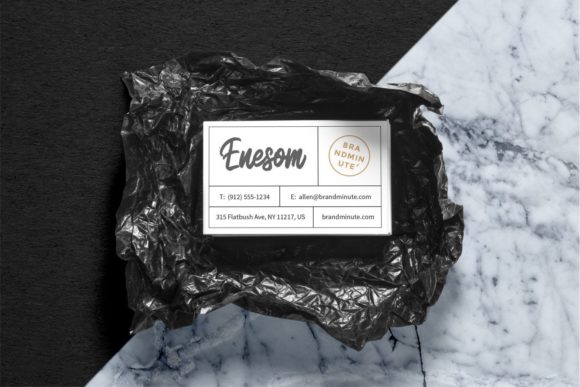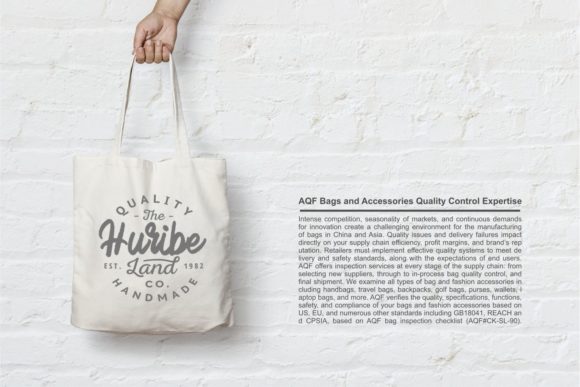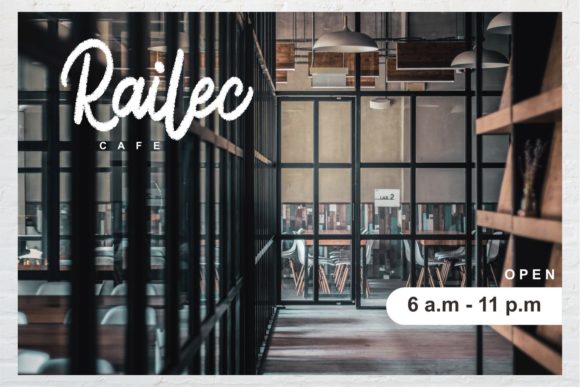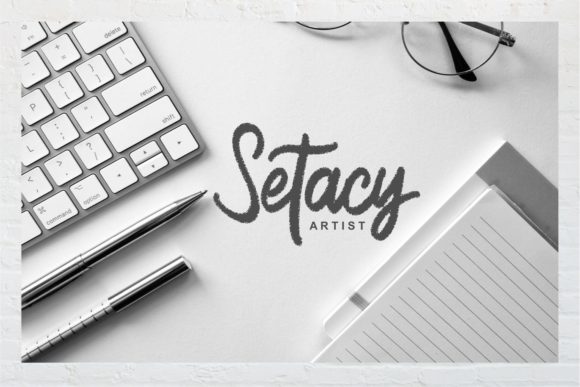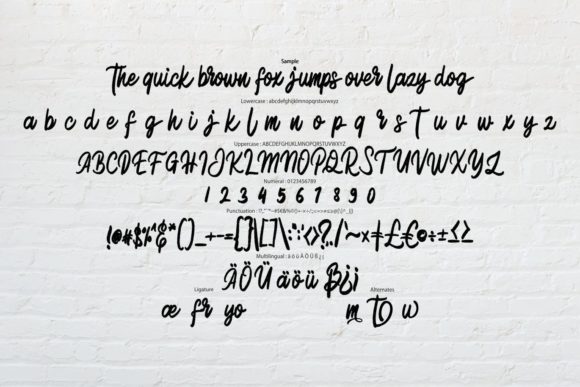
About Autikec Font
Autikec is a cool, vintage styled and paint brushed handwritten font. It looks beautiful on a variety of designs requiring a personalized style, such as wedding invitations, thank you cards, weddings, greeting cards, logos and so on.